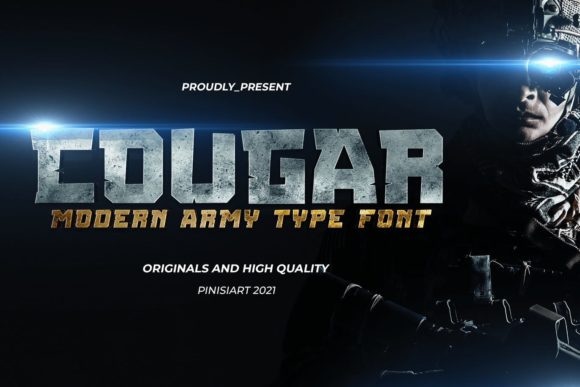
Behold, the COUGAR font – a fearless display font that embodies the essence of military might. Picture this: an army of letters, armed with sharp angles and bold strokes, marching across your designs. With COUGAR, your words become weapons, ready to conquer the world of visual communication.
Step into the world of military-inspired designs and let COUGAR lead the charge. Create book covers that evoke the thrill of battle, online games that resonate with the clash of steel, and stationery that exudes a sense of rugged determination. Unleash your creativity and let COUGAR's commanding presence elevate your designs to new heights.
Journey through a sea of fonts, and you'll find that COUGAR stands tall as the ultimate choice for captivating posters and movie titles. Its bold, commanding aura commands attention, making your messages impossible to ignore. Whether you're announcing an upcoming blockbuster or creating posters that demand a second glance, COUGAR is your trusted ally.
Conquer the vast digital landscape with COUGAR, the font that dominates YouTube covers and thumbnails. Its striking appearance ensures your videos stand out in the crowded online arena. Let your creativity flourish as you craft eye-catching visuals that draw viewers in and leave them wanting more. With COUGAR, your YouTube channel will radiate an aura of professionalism and leave a lasting impression on your audience.
Unleash your creativity and let COUGAR's bold personality shine through in your social media posts. Create page covers that exude confidence and captivate your followers. Make a statement with every update, every image, every message. Whether you're connecting on Facebook, Instagram, or Twitter, COUGAR ensures your social media presence is a force to be reckoned with.